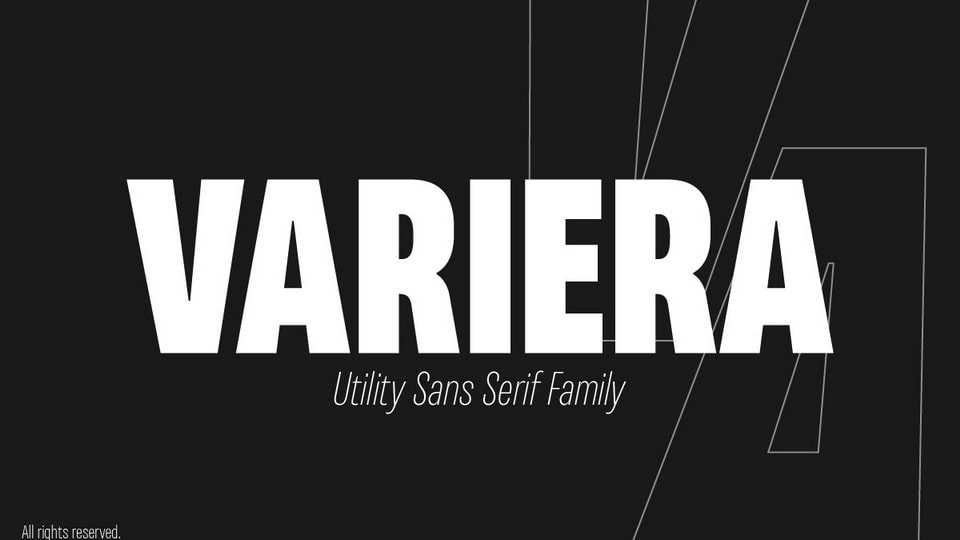
Download Variera font, a geometric semi-condensed sans serif typeface. Variera is a versatile font designed primarily for display uses with a need for visual impact.
Designer: Kereatype Studio